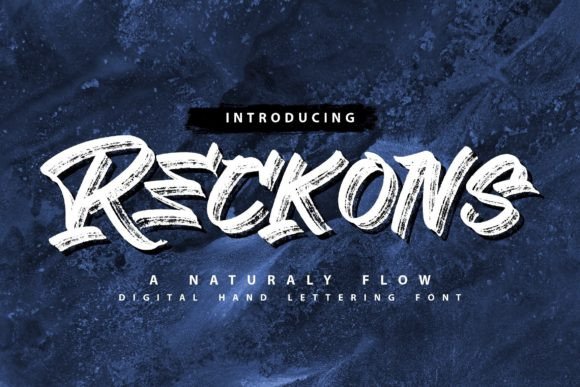
Picturesque weddings deserve fonts as beautiful as the celebration. With Reckons Font, you can add a touch of elegance and charm to your wedding invitations, save-the-dates, and more.
This enchanting brush-style display font is a testament to love, crafted with the utmost care and attention to detail. The PUA encoding ensures that you can effortlessly access all of the glyphs and swashes, allowing you to create truly breathtaking designs.
Whether you're a seasoned designer or just starting out, Reckons Font is the perfect choice for adding a touch of magic to your wedding stationery. Its versatility and functionality know no bounds, so let your creativity soar and create something truly unforgettable.
Reckons Font is the font that will make your wedding day even more special. With its captivating charm and timeless beauty, it will add a touch of enchantment to every element of your celebration.